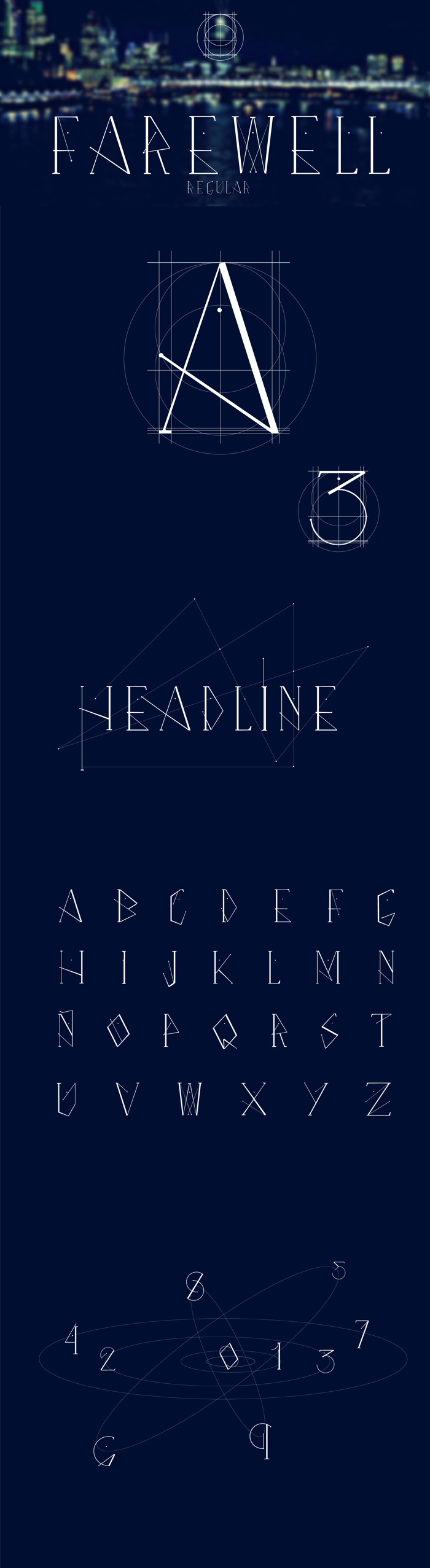
Farewell Font
Personal project, font type design. This was design only for headline, capital letter and short texts. Foto de fondo de Emily Play Photography Proyecto personal, diseño de fuente tipográfica. Farewell fue diseñada para títulos, letras capitales y textos cortos